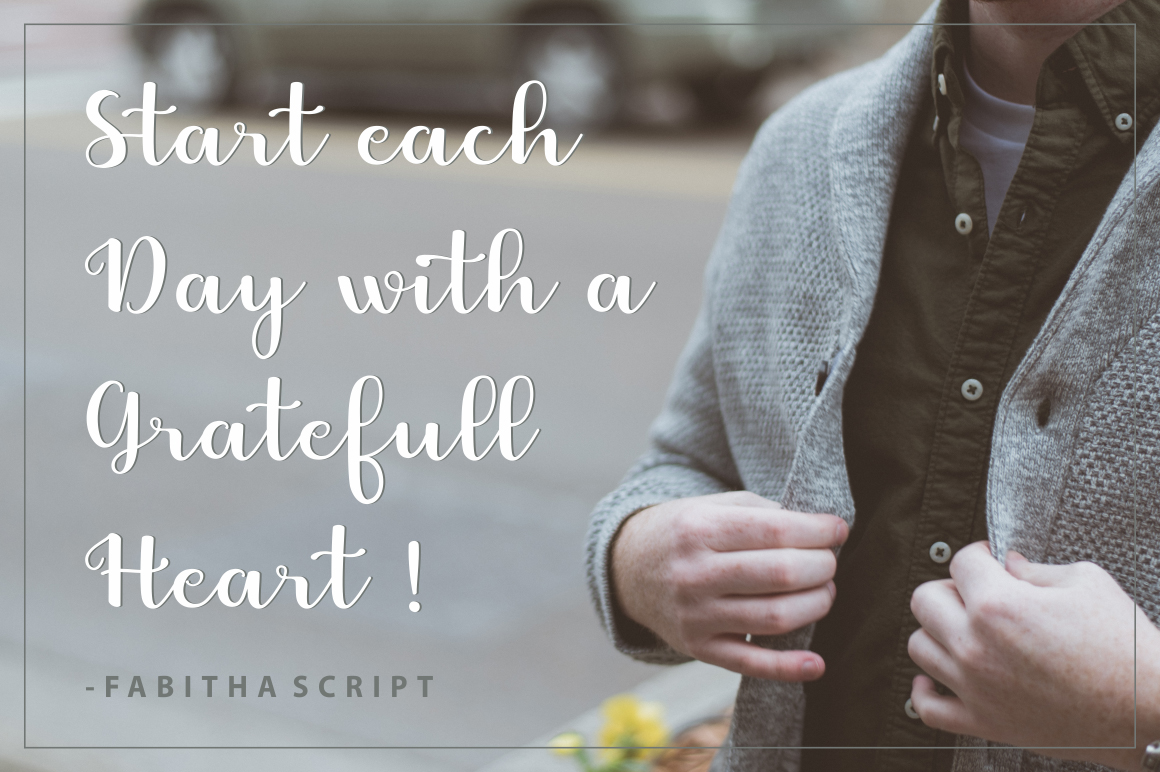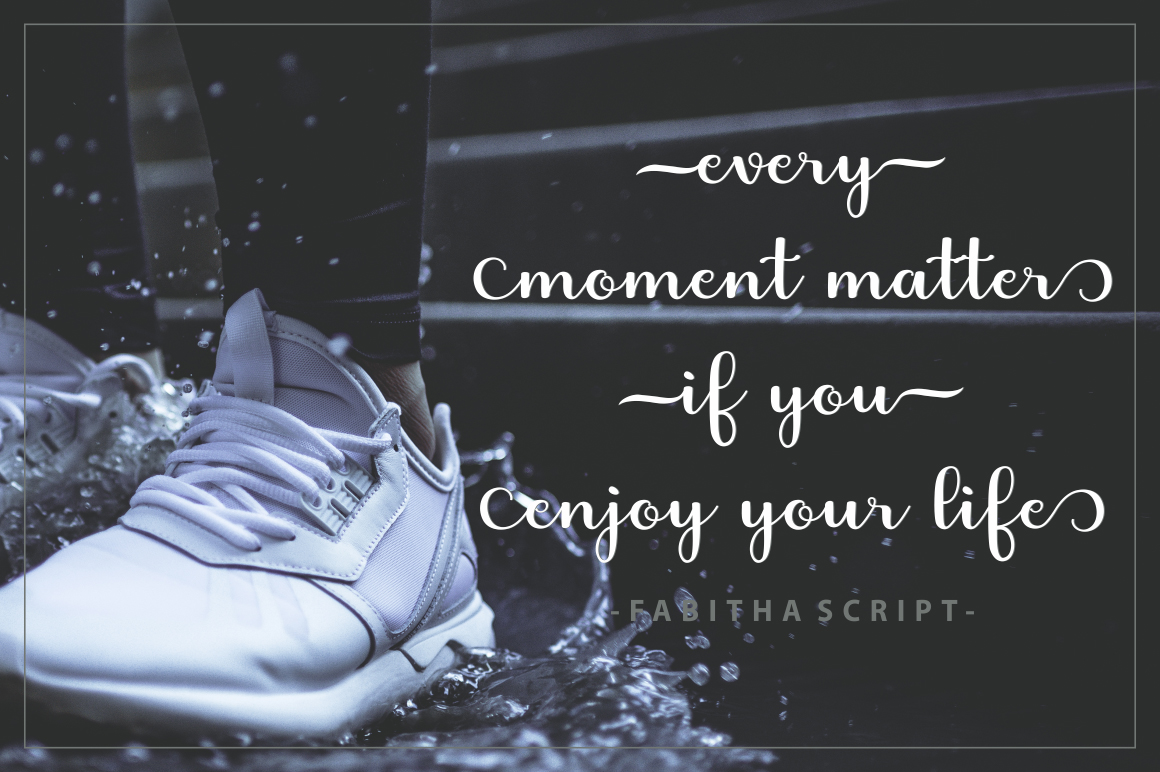
Fabitha Font
About Fabitha Font
The Fabitha is a modern, handwritten calligraphy script. It’s fresh and classy, and ready to give a luxurious feel to your designs.